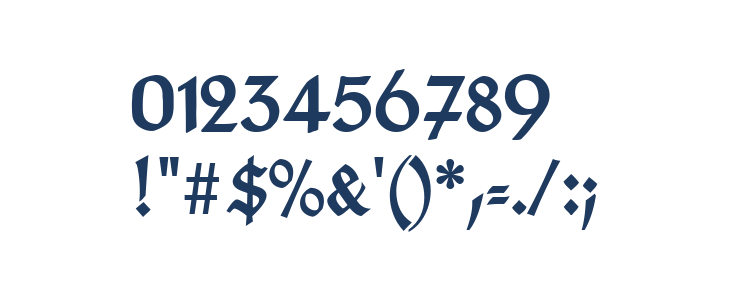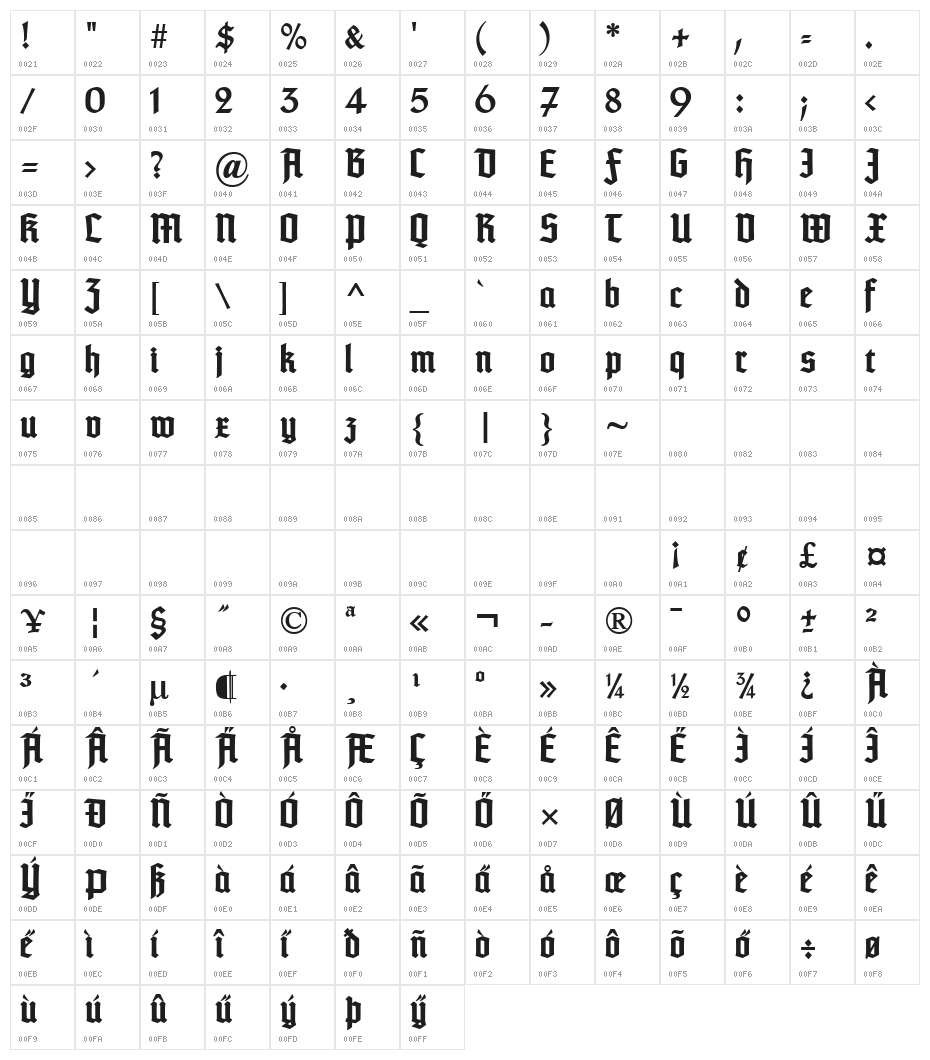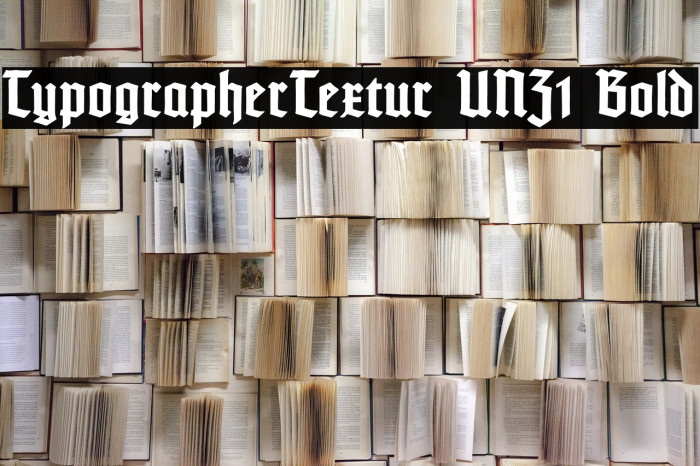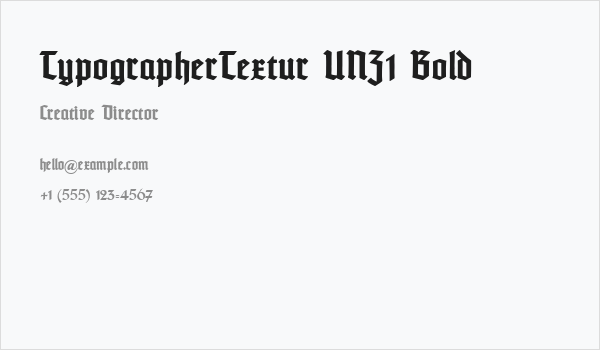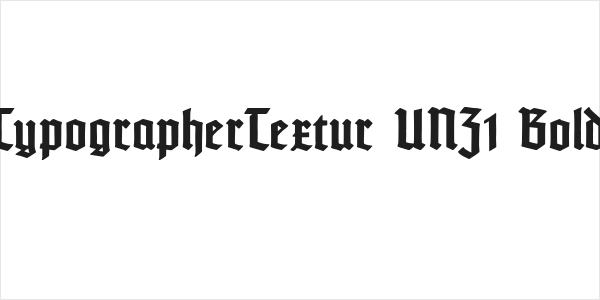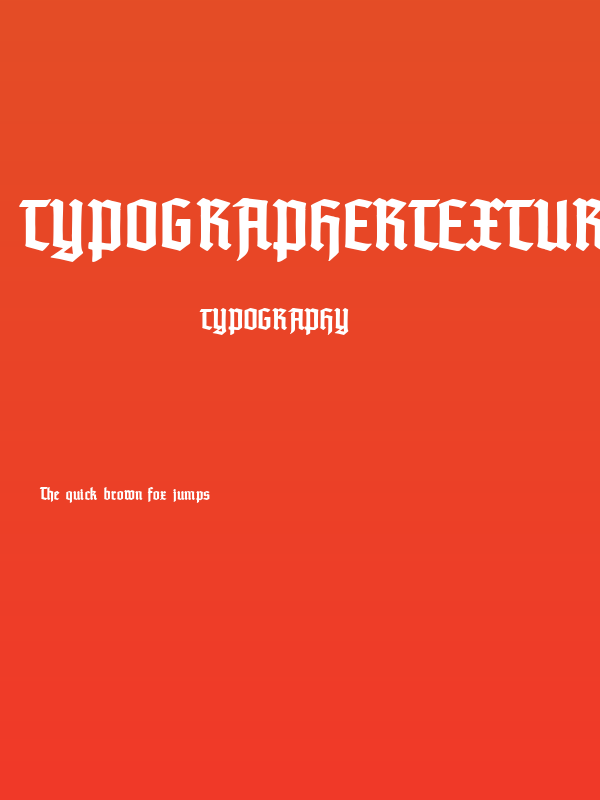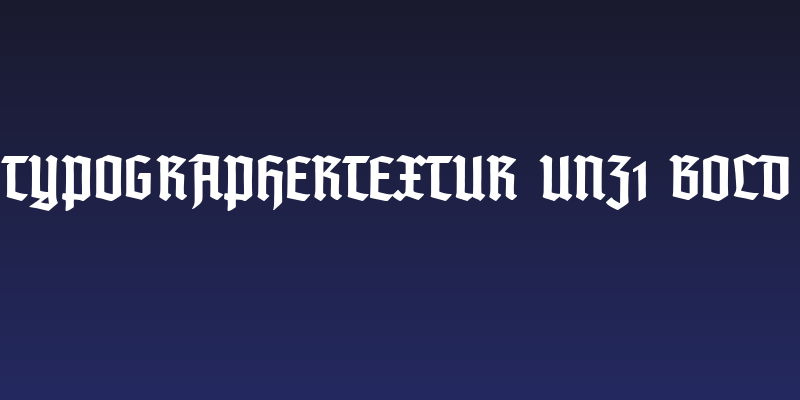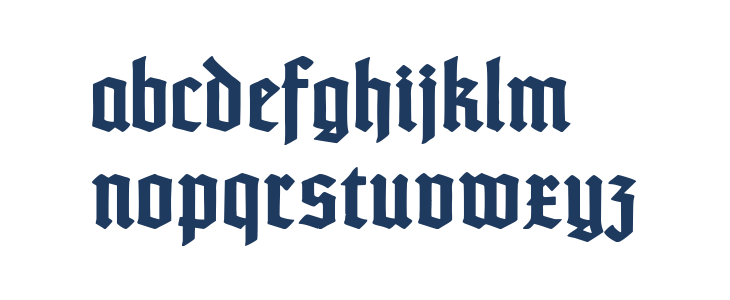
TypographerTextur UNZ1 Bold Font
TypographerTextur UNZ1 Bold Description
This font features a bold and striking blackletter style, characterized by its sharp, angular lines and dramatic strokes. The uppercase letters exhibit a strong presence with their intricate design, while the lowercase letters maintain a consistent flow, enhancing readability. Numbers and special characters are crafted with the same attention to detail, ensuring a cohesive look across all elements. The font's historical and traditional aesthetic makes it ideal for projects that require a touch of elegance and sophistication.